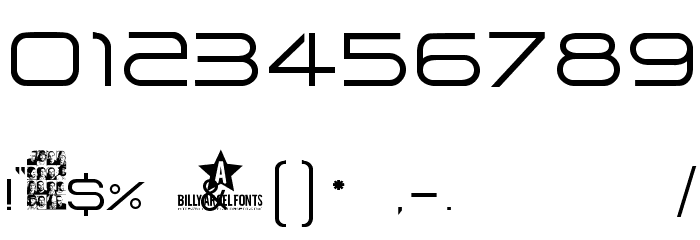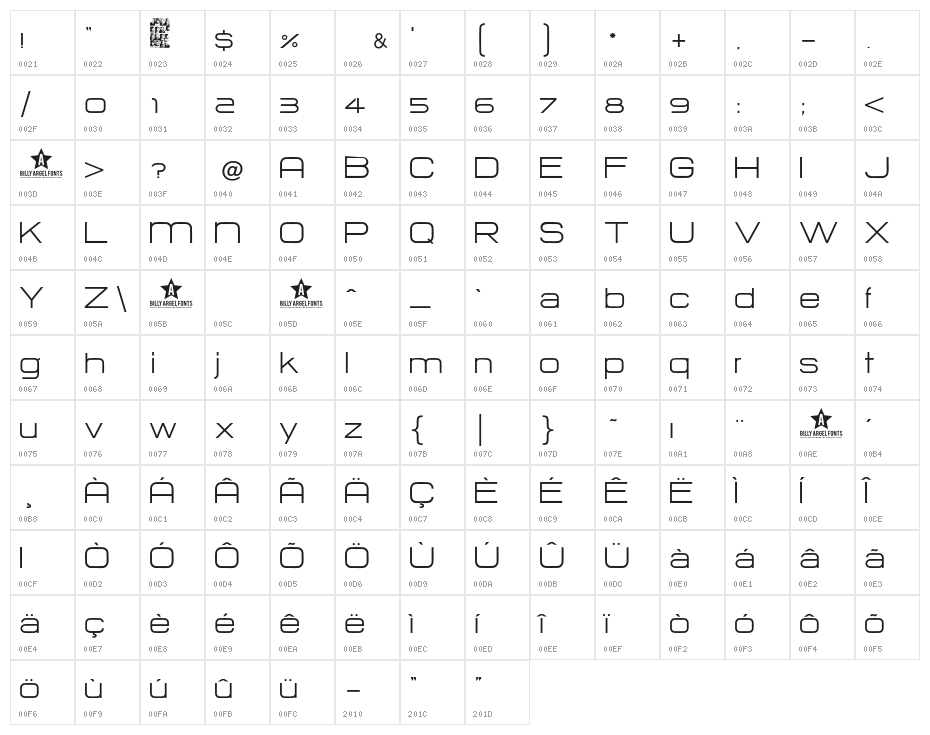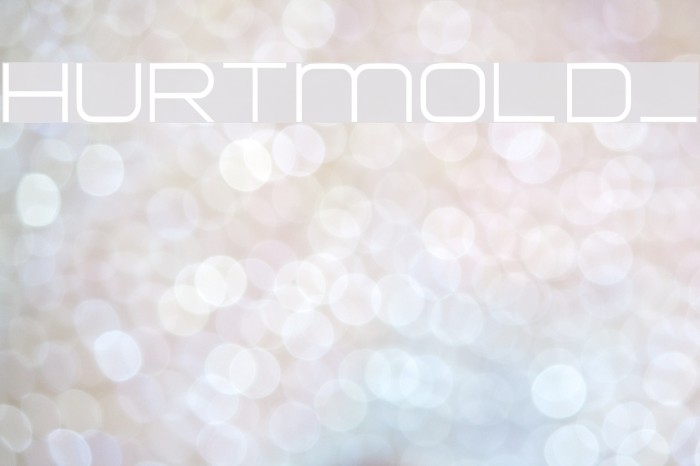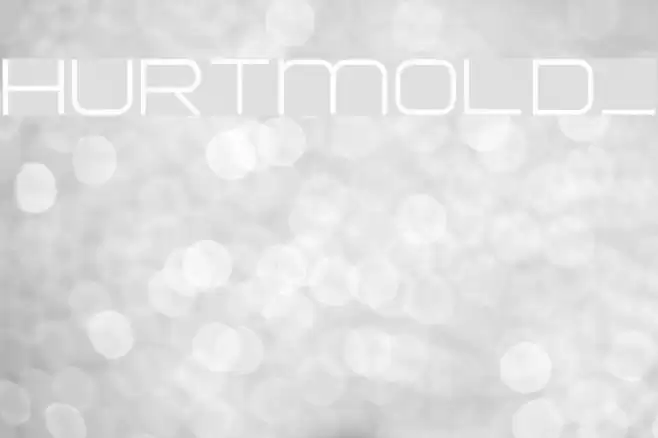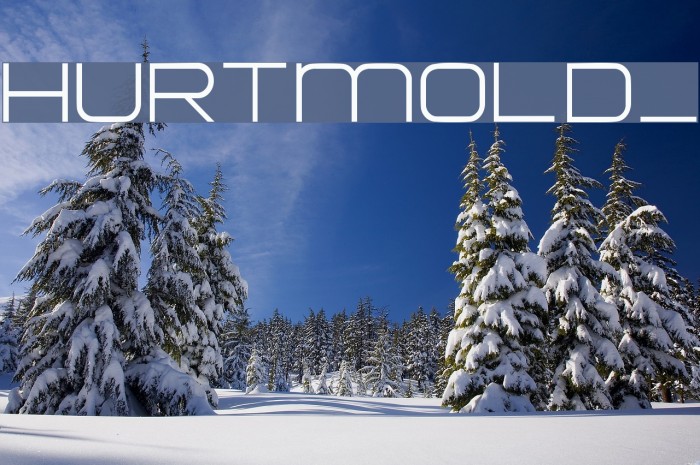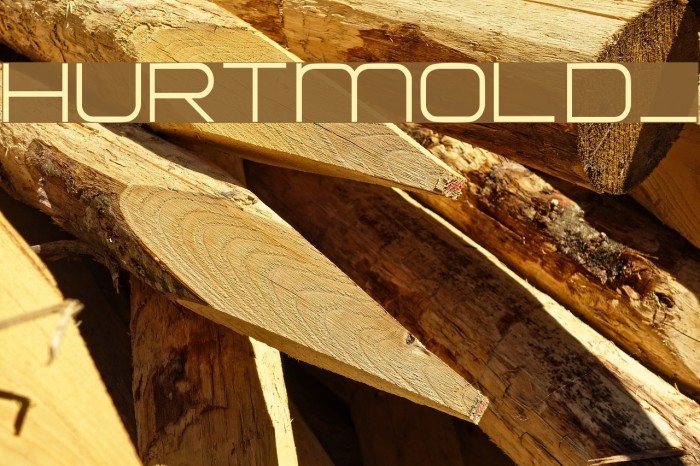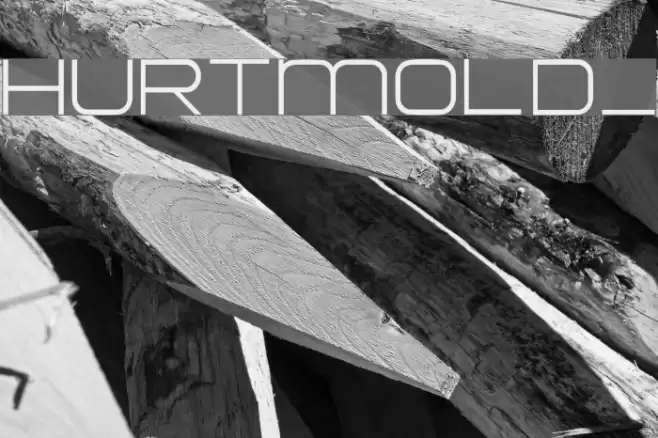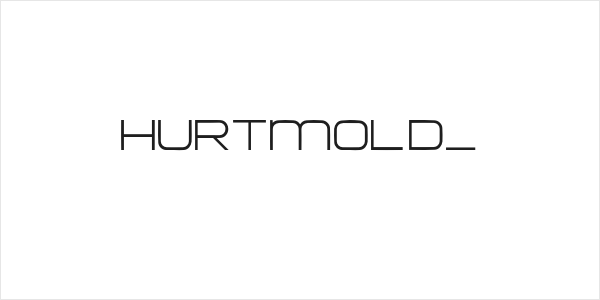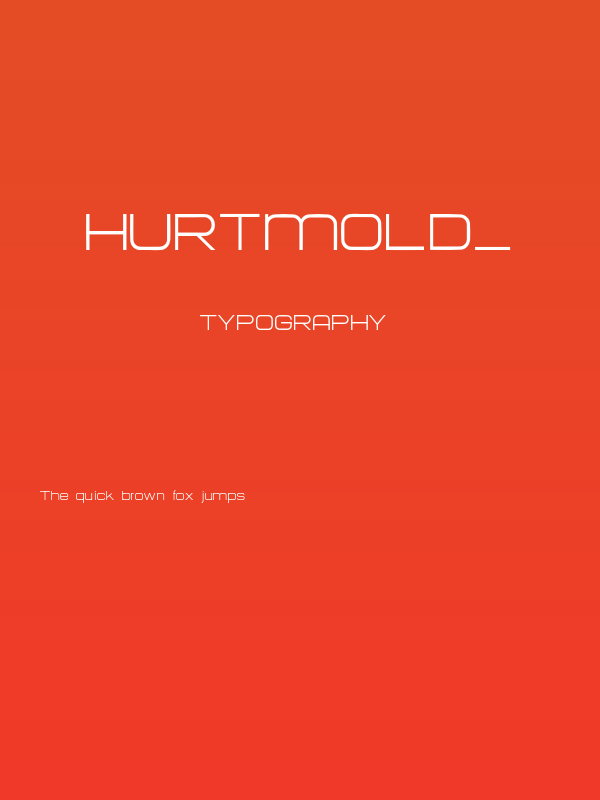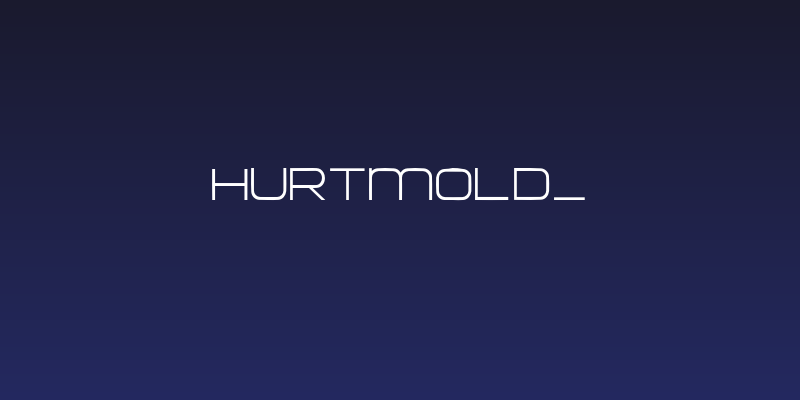
HURTMOLD_ Font
✎ Sans Serif
HURTMOLD_ Description
This font features a sleek, modern design with a geometric structure. The characters are composed of clean, straight lines and rounded edges, giving it a futuristic and technical appearance. The uppercase letters are uniform in height, while the lowercase letters maintain a consistent baseline, enhancing readability. The numerals are distinct and align well with the overall style, making them suitable for digital displays. Special characters are minimalistic, complementing the font's streamlined aesthetic. This font is ideal for projects that require a contemporary and professional look.
| Use Case | Headlines, Digital displays, Branding |
| Proposed Projects | Ideal for tech branding, digital interfaces, and modern advertising. |